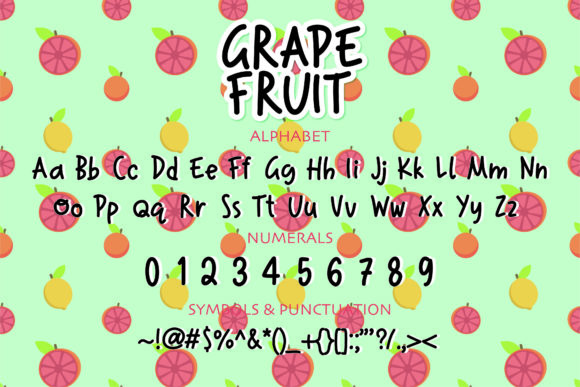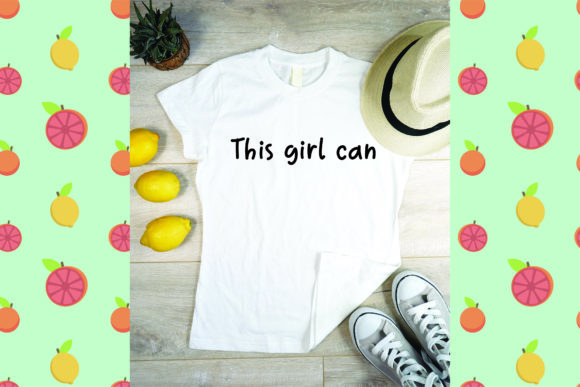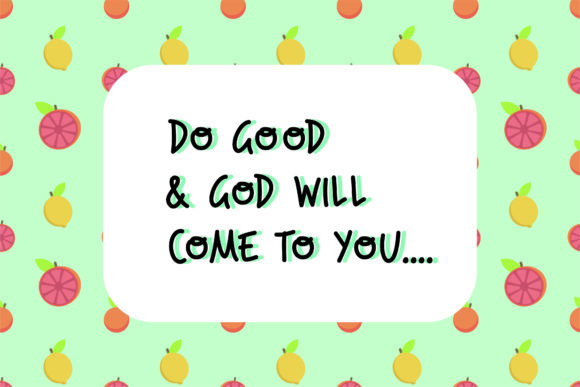
About Grape Fruit Font
Grape Fruit is a childish and friendly display font that conveys impeccable friendliness. Whether you’re using it for crafts, digital design, presentations, or making greeting cards, this font has the potential to become your favorite go-to font, no matter the occasion!